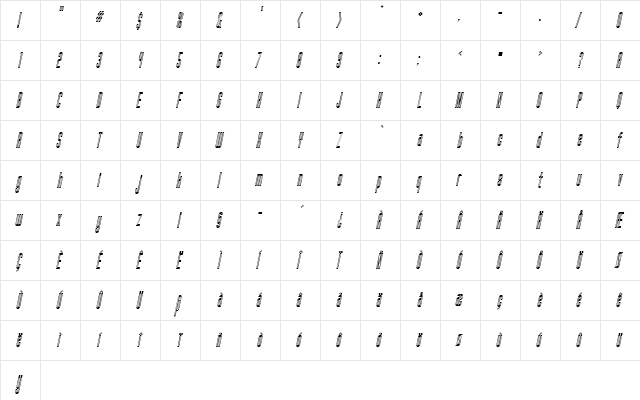
FanatiqueInline Oblique
Design Context for FanatiqueInline Typeface
FanatiqueInline brings ornamental detail and strong personality to headlines and identities, where visual impact matters more than quiet functionality. The slanted form adds forward momentum and visual energy.
Font Pairing: Pair with a clean neutral sans-serif for body copy to let FanatiqueInline's character lead without overwhelming the composition.
Pro Tip: Treat FanatiqueInline as the centrepiece of your typographic hierarchy. One strong heading set in a decorative face can carry an entire layout.